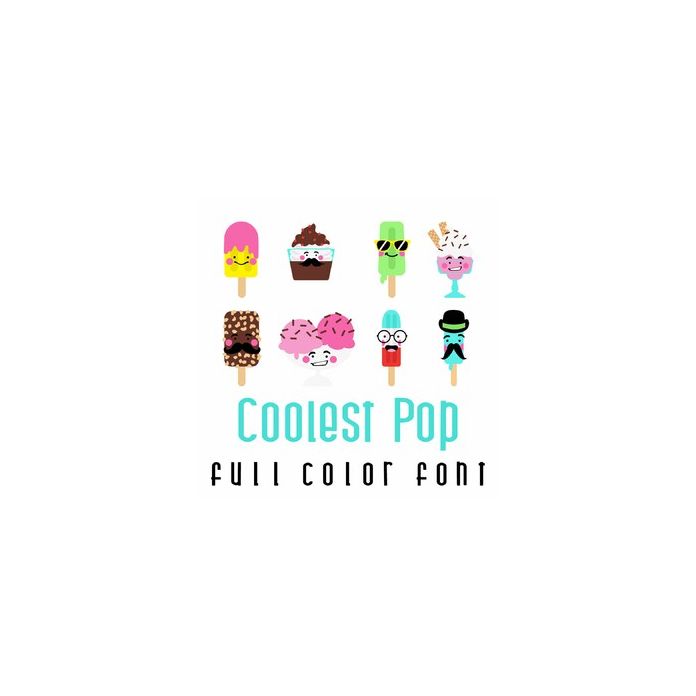
This fun full color doodlebat font features popsicle and ice cream treats perfect for Dad. Use this graphic to create fun gifts, cards, crafts, decor, party decor, planner stickers, scrap book pages and more!